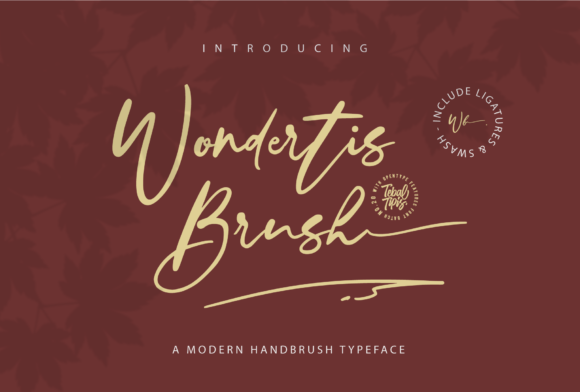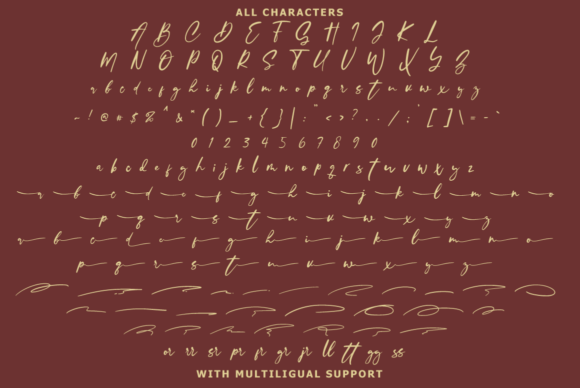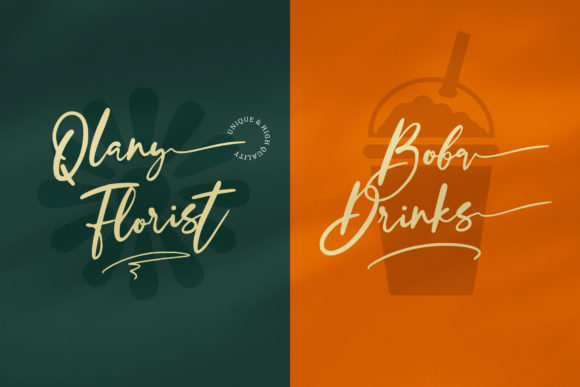
About Wondertis Brush Font
Wondertis Brush is an elegant script font with a contemporary atmosphere and impeccable form, inspired by timeless classic calligraphy. This font is PUA encoded which means you can access all of the amazing glyphs and ligatures with ease!